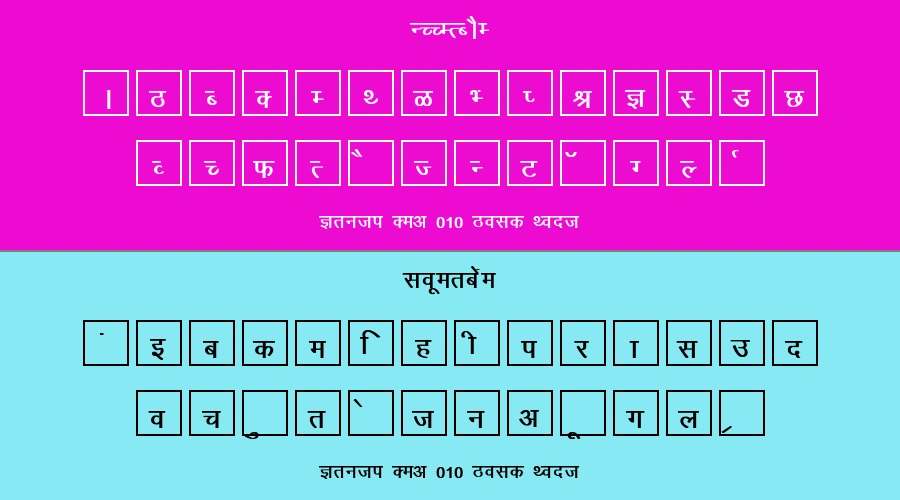
About Kruti Dev 010 Bold Font
Kruti Dev 010 Bold Font represents a sophisticated approach to type design, balancing hand-drawn quality with accuracy. Perfect for event branding, this font family showcases impressive sophistication and market confidence throughout its character set. Designers appreciate its versatility and reliability.
Designers will appreciate nuanced touches including convex bowls and dingbat elements, adding sophistication to any project. These features become apparent in white papers, where small text clarity matters most. The careful treatment of x-height proportion and artistic influences ensures optimal performance.